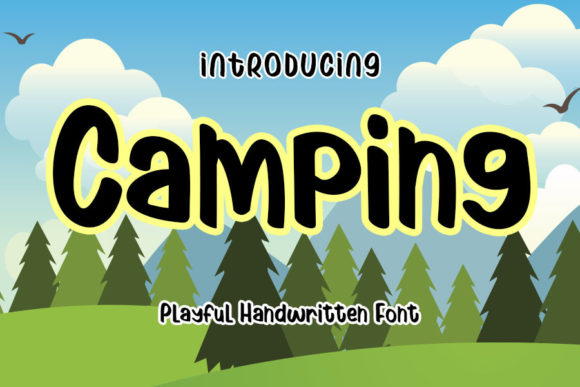
The Great Outdoors, In Fonts: Discovering Camping Font
I still remember the time I was working on a camping brochure project, struggling to find the perfect font that captured the essence of the great outdoors. My client wanted something fresh, playful, and adventurous, but I was stuck in a design rut. That’s when I stumbled upon Camping Font, a cute and trendy handwritten font that instantly transported me to the world of camping and adventure. In this article, I’ll share my experience with Camping Font, its unique features, and how to make the most of it in your designs.
An Honest Review of Camping Font
Camping Font has quickly become one of my go-to fonts for outdoor-themed projects. Here’s what I love about it:
- ✨ Natural and unique style: Camping Font has a distinct, hand-crafted feel that sets it apart from other fonts.
- ✅ Versatility: Its neutral tone makes it perfect for a wide range of designs, from camping and outdoor gear to travel brochures and kids’ party invitations.
- 💡 Creativity unleashed: With Camping Font, the only limit is your imagination! It pairs well with various design elements, from illustrations to photographs.
While Camping Font is an excellent choice, it’s not without its quirks:
- 🤔 Limited formal settings: Due to its playful nature, Camping Font might not be the best fit for formal or corporate designs.
- ⚠️ Legibility at small sizes: As with many script fonts, Camping Font can become difficult to read at very small sizes.
- Experiment with OpenType features like ligatures and stylistic alternates to add personality to your text.
The Story Behind Camping Font
Camping Font was designed with the great outdoors in mind. Its creator, a passionate designer and outdoor enthusiast, aimed to capture the carefree spirit of camping and adventure. Inspired by handwritten signs and trail markers, Camping Font brings a touch of nature to your designs.
| Font Name | Camping Font |
| Does Camping Font support OpenType features? | Yes, Camping Font includes OpenType features like ligatures and stylistic alternates to enhance your designs. |
| Is Camping Font available in different weights or styles? | Currently, Camping Font is available in a single style, but its versatility makes it suitable for various design applications. |